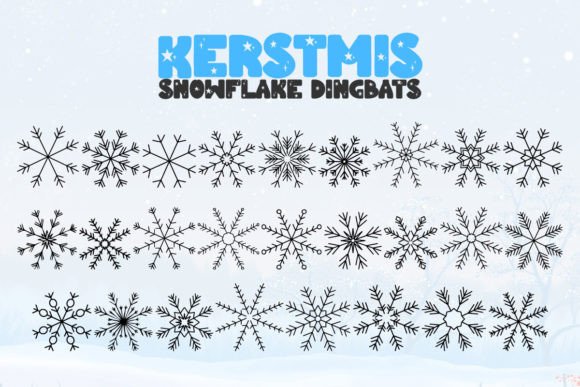
Kerstmis is a beautiful instrument for designers, blogers and everybody who loves doodle scandinavian or hygge style.
Perfect for kid’s book, scrapbook, logo, icon, divider, phrases, quotes, winter greeting cards etc.